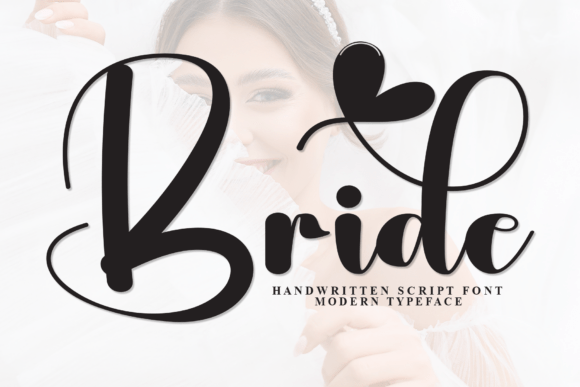
The Bride Font: Elevating Designs with Elegance and Flair
Have you ever been in the middle of a design project, and suddenly, you’re stuck on finding the perfect font? I recall a recent experience where a client requested a logo that exuded both artistic flair and contemporary elegance. The challenge was real, but then I discovered the Bride font, and it completely transformed my design.
First Impressions: A Stylish Script Font
The Bride font is a stunning script font that captures the essence of hand-painted calligraphy with a modern twist. Its fluid brush strokes, dynamic curves, and expressive letterforms make it an ideal choice for designers, crafters, and creative hobbyists looking to add a creative and sophisticated touch to their work.
Honest Review: The Good and the Quirks
Here’s what I love about the Bride font:
• ✨ Fluid brush strokes that give it a natural, hand-painted feel
• ✅ Dynamic curves and expressive letterforms that add visual interest
• 💫 Contemporary elegance that makes it perfect for modern designs
• 🎨 Versatility – it can be used for logos, invitations, packaging, and social media graphics
As for quirks, I noticed a few things to keep in mind:
• 🤔 Legibility at small sizes – it works best at larger sizes, so use it for headlines or titles
• ⚠️ Limited use for body text – it’s best used for short texts or titles, rather than long paragraphs
The Designer Inspiration Behind Bride Font
The Bride font was inspired by the art of hand-painted calligraphy. Its creator aimed to capture the essence of traditional calligraphy and infuse it with a modern twist. The result is a font that exudes elegance, sophistication, and creativity.
Q: What type of projects is the Bride font best suited for?
A: The Bride font is ideal for logos, invitations, packaging, and social media graphics.
Q: Can I use the Bride font for body text?
A: While it’s possible, the Bride font is best used for short texts or titles, rather than long paragraphs.
Q: Does the Bride font support OpenType features?
A: Yes, the Bride font supports OpenType features, including stylistic alternates, swashes, and glyphs.
Q: Is the Bride font suitable for beginners?
A: Yes, the Bride font is easy to use and suitable for designers of all skill levels.